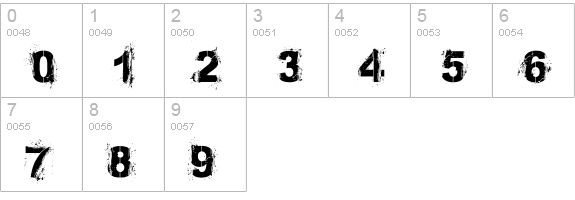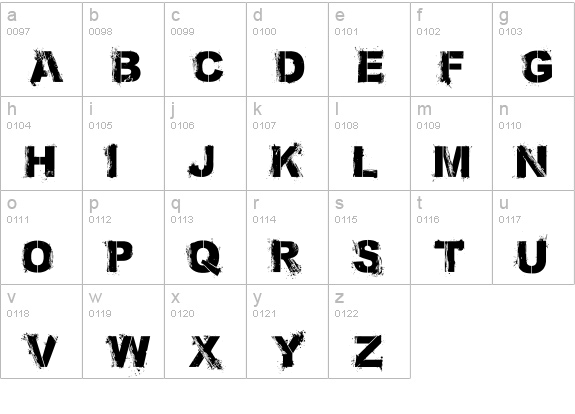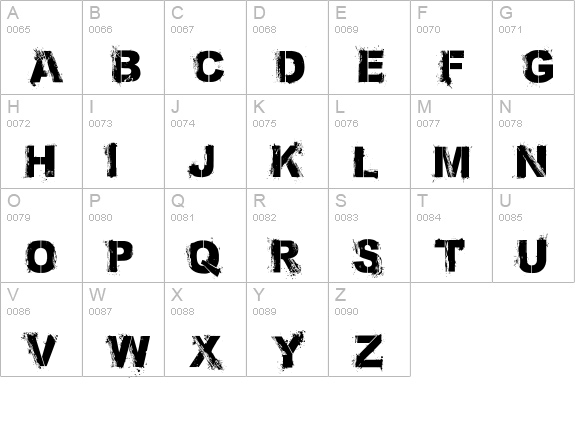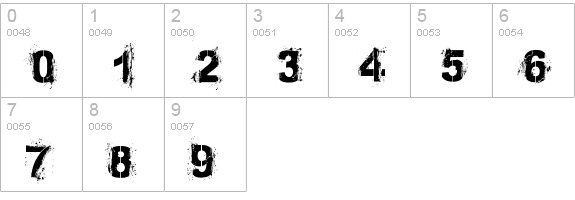
Bronx Bystreets Font Details
Bronx Bystreets font is a captivating display typeface that effortlessly combines urban style with a touch of rebelliousness. Its bold letterforms and sharp edges evoke the gritty energy of the Bronx's bustling streets, making it the perfect choice for any design project seeking to make a statement. Designed with meticulous attention to detail, Bronx Bystreets font commands attention with its unique and edgy aesthetic. Each character is carefully crafted to convey a sense of urban authenticity, making it ideal for streetwear brands, album covers, posters, and any creative endeavor that demands a bold and impactful presence. What sets Bronx Bystreets font apart is not only its striking design, but also its availability as a free download. Yes, you heard it right, this remarkable font can be freely obtained at FontsMarket.com. With its accessibility, designers and creatives from all walks of life can now effortlessly incorporate the captivating energy of Bronx Bystreets into their projects without any financial barriers. Whether you're working on a graffiti-inspired artwork, a hip-hop album cover, or a cutting-edge fashion brand, Bronx Bystreets font is the perfect tool to elevate your designs to new heights. Its versatility and dynamic nature allow it to adapt to various design contexts while still retaining its unique identity. So, why settle for ordinary when you can make a bold statement with Bronx Bystreets font? Download it for free at FontsMarket.com and unlock a world of unlimited creative possibilities. Embrace the urban energy of the Bronx and let your designs speak volumes with this remarkable typeface.